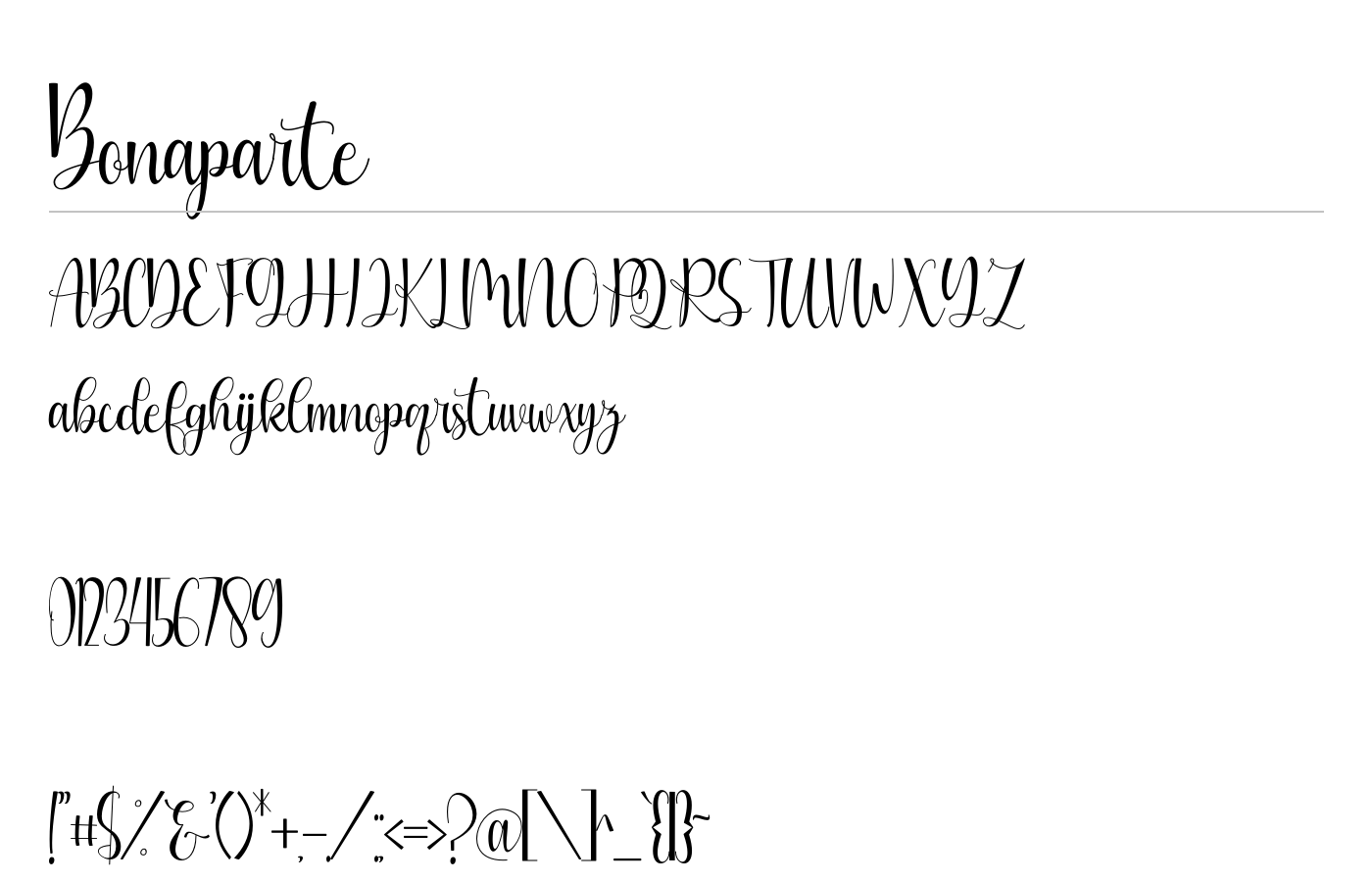
Bonaparte is an elegant, slender script font that combines graceful, flowing letterforms with a high contrast between thick and thin strokes. Its delicate, calligraphic style evokes a refined and sophisticated mood, making it perfect for luxury branding, wedding invitations, and feminine editorial designs. With its distinctive swashes and tall, narrow characters, Bonaparte adds a stylish, handcrafted touch that works beautifully in headlines and decorative text.
Bonaparte Font
About Bonaparte Font
| Font family | Bonaparte Font |
| Designer | Arief Tri Sulistiyono |
| Trademark | Supersemar Letter |